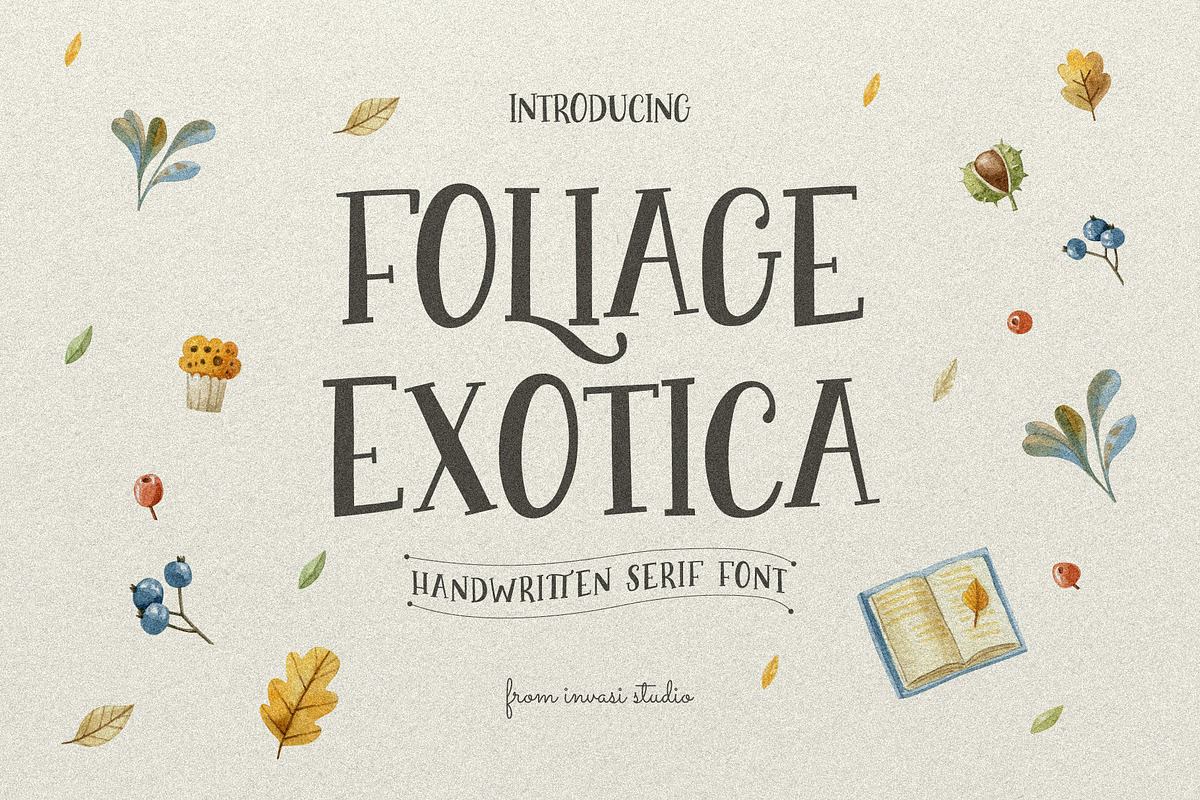
Foliage Exotica – Handwritten Serif Font Free Download is a beautiful and unique blend of handwritten script and serif style, designed to add a touch of elegance and creativity to your designs. With its organic, flowing strokes combined with classic serif elements, this font is perfect for nature-inspired branding, invitations, eco-friendly packaging, and creative editorial designs.
The handwritten aspect adds a personal touch, while the serifs give it a grounded, professional look, making it versatile for both casual and sophisticated designs. Whether you're designing a logo, product label, or social media post, Foliage Exotica brings charm and personality to any project.
Add a natural, artistic flair to your designs with the enchanting style of Foliage Exotica! 🌿✨